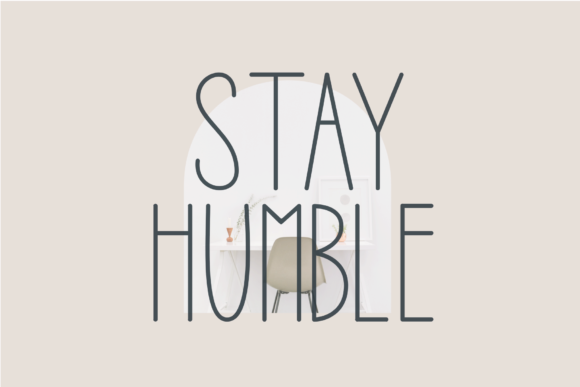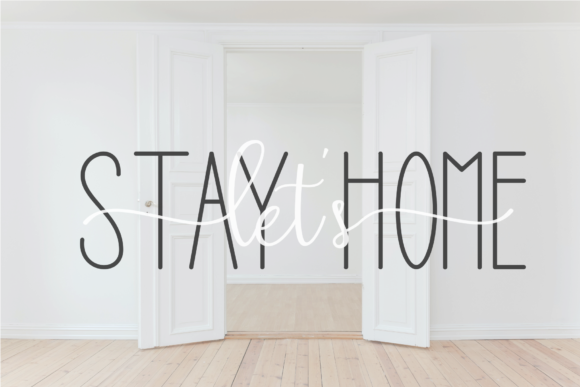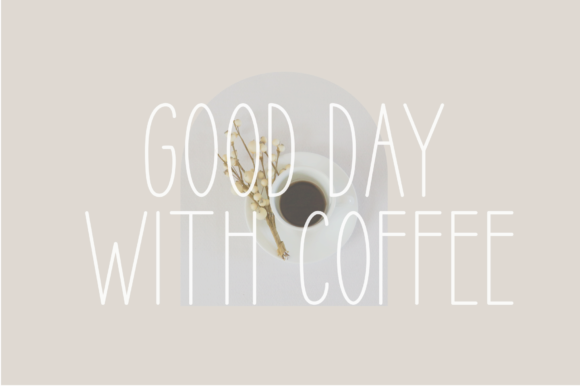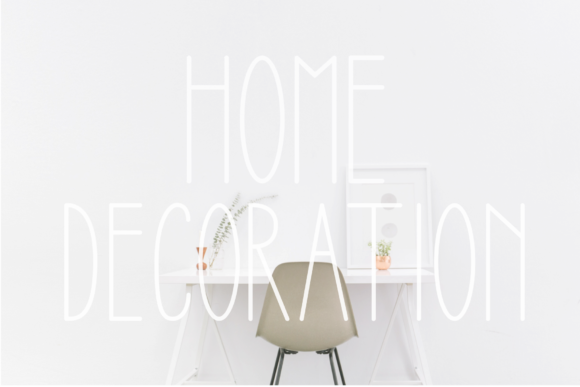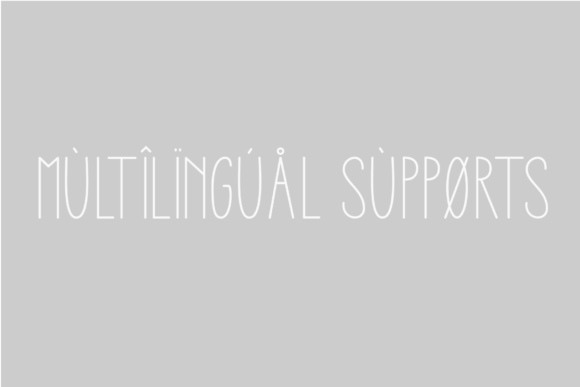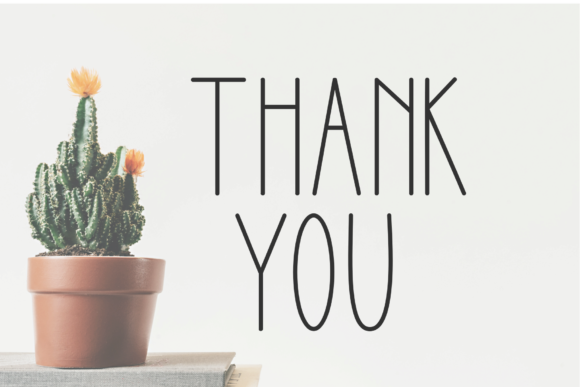
Discover the Elegance of Green Corner Font: A Simple yet Powerful Sans Serif Font
In the world of typography, fonts play a crucial role in conveying messages, expressing emotions, and creating a lasting impression. For designers, crafters, and creative enthusiasts, finding the right font can be a daunting task. However, if you’re looking for a font that embodies simplicity, elegance, and versatility, look no further than the Green Corner Font. In this article, we’ll explore the features, benefits, and uses of this amazing font, and why it’s a must-have in your font library.
What is Green Corner Font?
Green Corner Font is a simple and thin lettered sans serif font that exudes a sense of modernity and sophistication. Its clean lines, minimalist design, and effortless flow make it perfect for a wide range of creative projects. Whether you’re working on a logo, branding materials, website, or social media graphics, Green Corner Font is designed to elevate your designs and leave a lasting impression.
Key Features of Green Corner Font
• Simple and Thin Lettering: Green Corner Font boasts a sleek and slender design that ensures your text remains clear and legible, even at small sizes.
• Sans Serif: The font’s sans serif design gives it a modern and clean look that’s perfect for contemporary designs.
• Versatile: Green Corner Font can be used for a wide range of projects, from logos and branding materials to websites, social media graphics, and more.
• Elegant and Sophisticated: The font’s elegant design makes it perfect for projects that require a touch of sophistication and refinement.
Benefits of Using Green Corner Font
So, why should you choose Green Corner Font for your next project? Here are just a few benefits of using this amazing font:
• Enhances Readability: Green Corner Font’s clean design and clear lettering ensure that your text is easy to read, making it perfect for body text, headings, and titles.
• Boosts Visual Appeal: The font’s elegant design and sophisticated look make it perfect for creating visually stunning designs that grab attention.
• Versatile and Adaptable: Green Corner Font can be used for a wide range of projects, making it a valuable addition to your font library.
• Easy to Pair: The font’s simple design makes it easy to pair with other fonts, allowing you to create unique and harmonious typography combinations.
Who Can Benefit from Green Corner Font?
Green Corner Font is perfect for:
• Graphic Designers: Whether you’re working on a logo, branding materials, or marketing collateral, Green Corner Font is a great addition to your design toolkit.
• Crafters and Makers: If you’re creating handmade products, such as greeting cards, invitations, or DIY crafts, Green Corner Font can add a touch of elegance and sophistication to your designs.
• Web Designers and Developers: Green Corner Font is perfect for web projects, including website headers, navigation menus, and body text.
• Social Media Enthusiasts: Use Green Corner Font to create stunning social media graphics, including Facebook posts, Instagram stories, and Twitter headers.
In conclusion, Green Corner Font is a simple yet powerful sans serif font that’s perfect for designers, crafters, and creative enthusiasts. Its elegant design, versatility, and readability make it a valuable addition to any font library. Whether you’re working on a logo, website, or social media graphics, Green Corner Font is sure to elevate your designs and leave a lasting impression. So why wait? Add Green Corner Font to your collection today and discover the power of simple, yet effective typography.